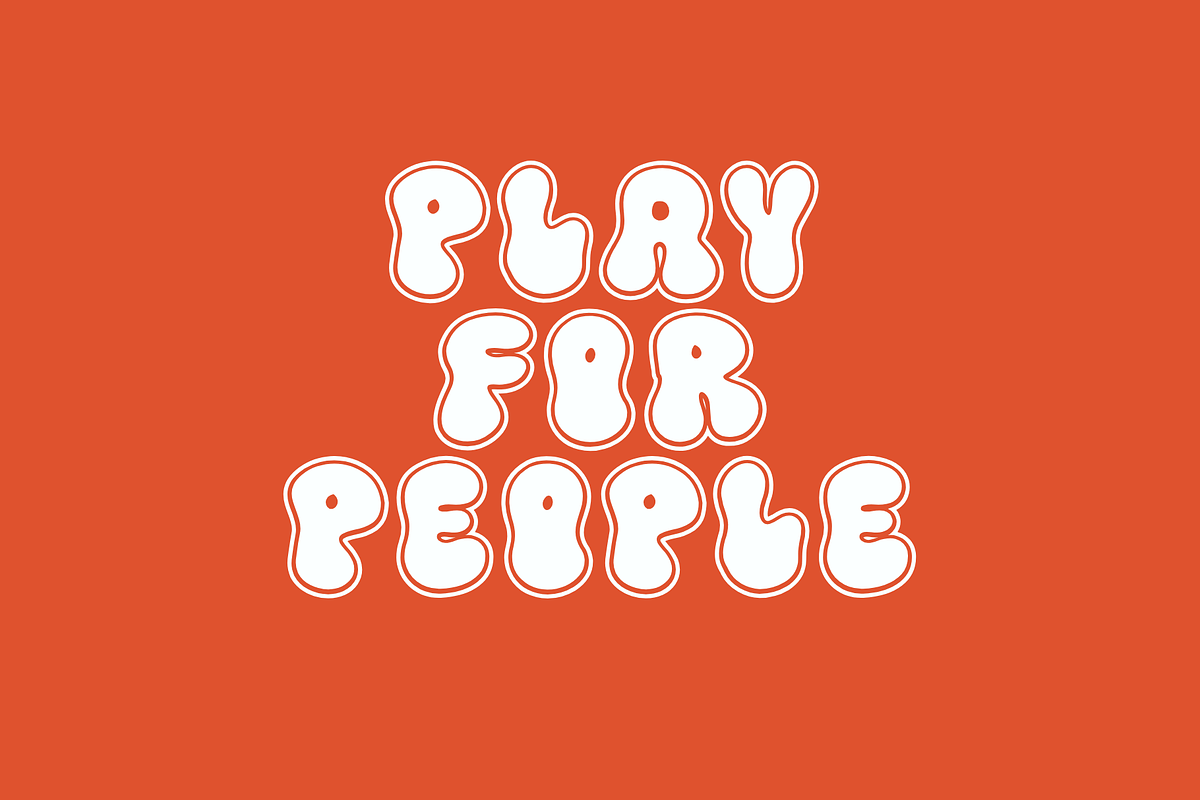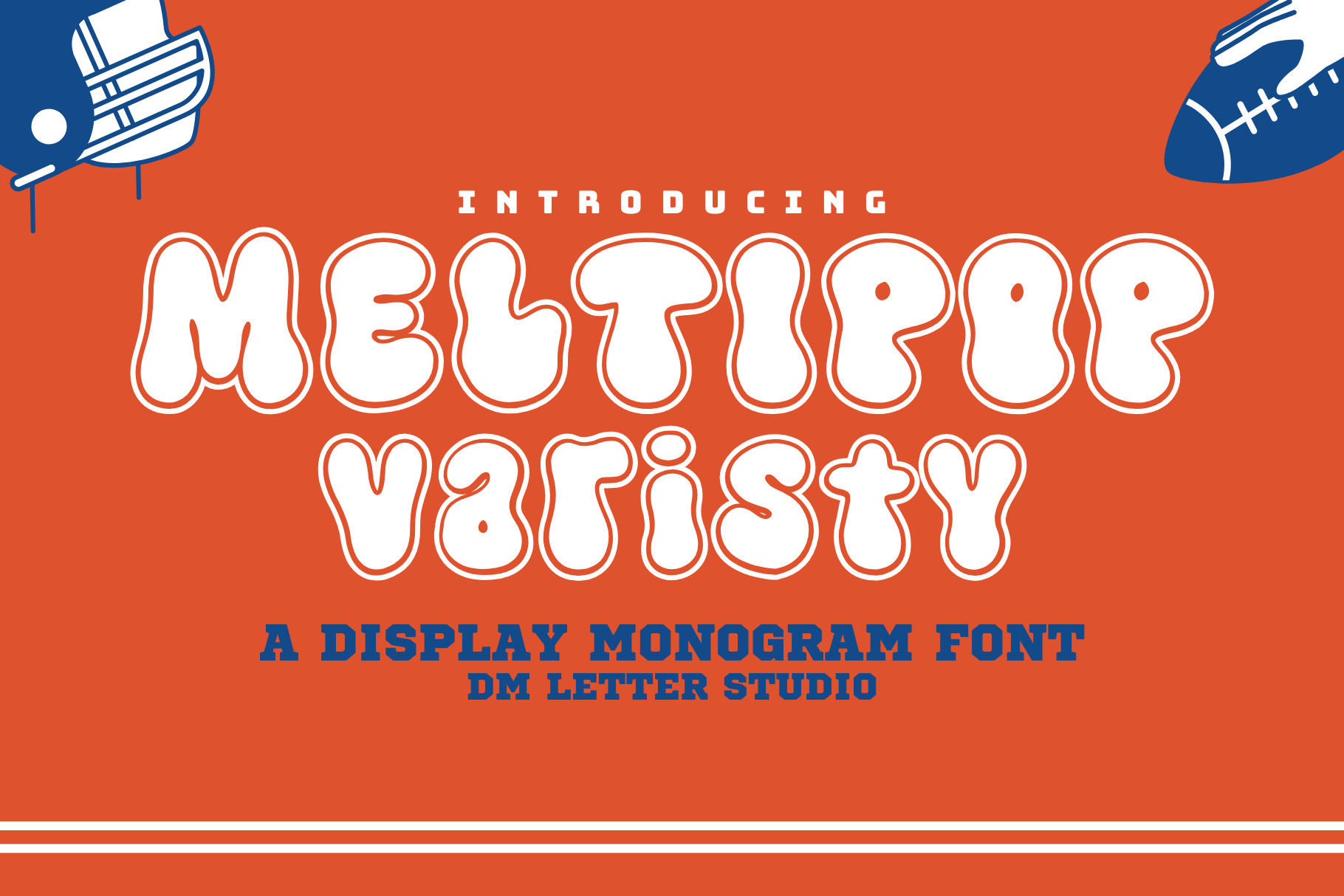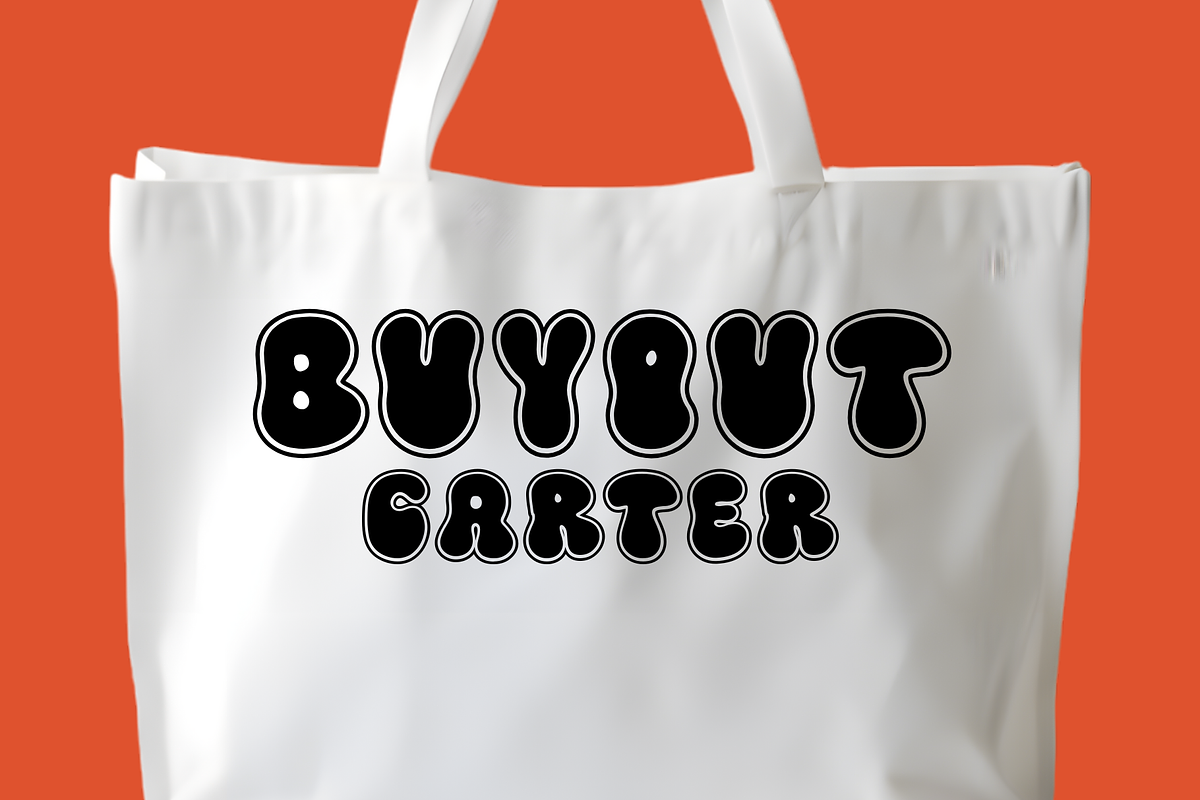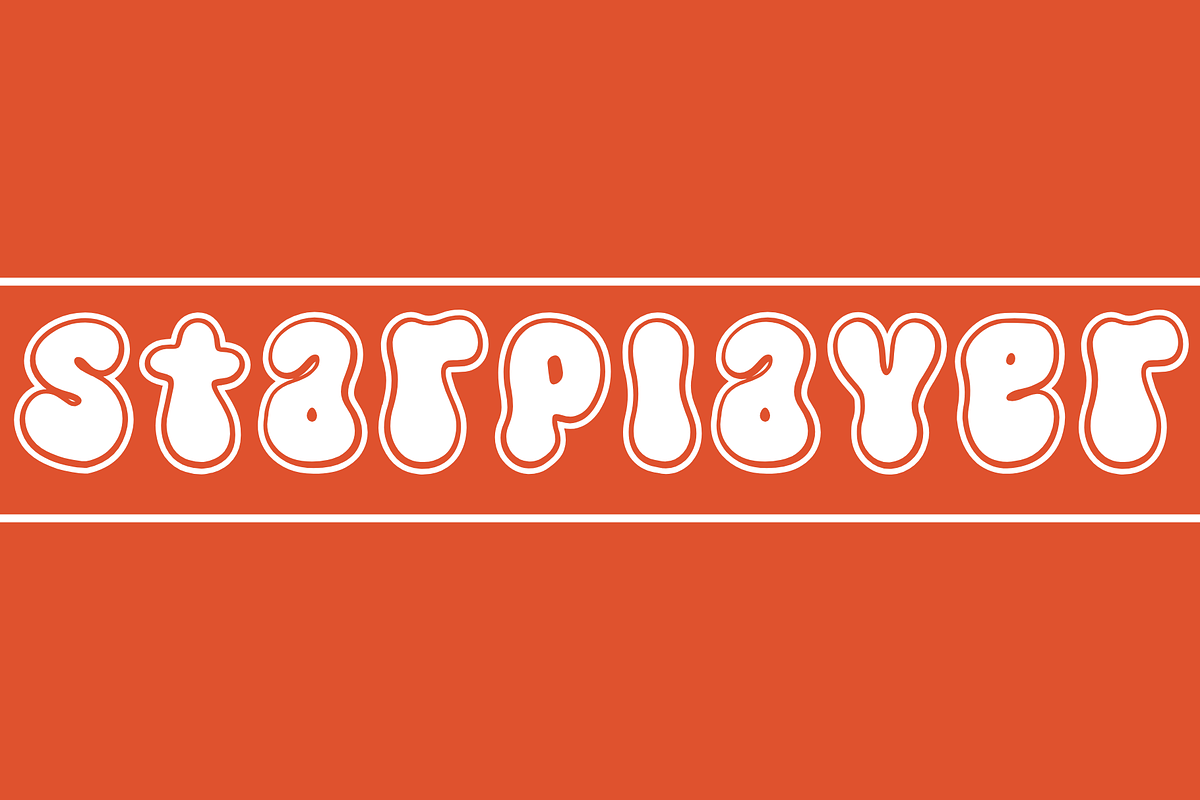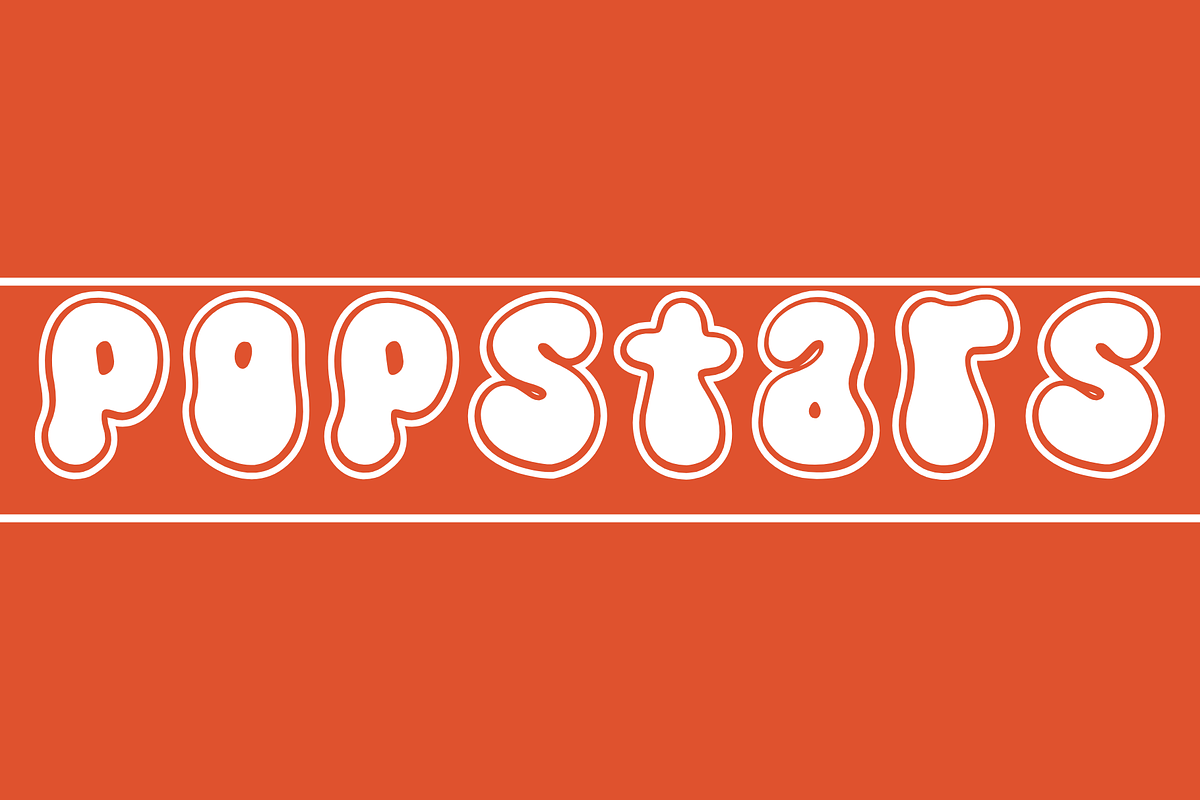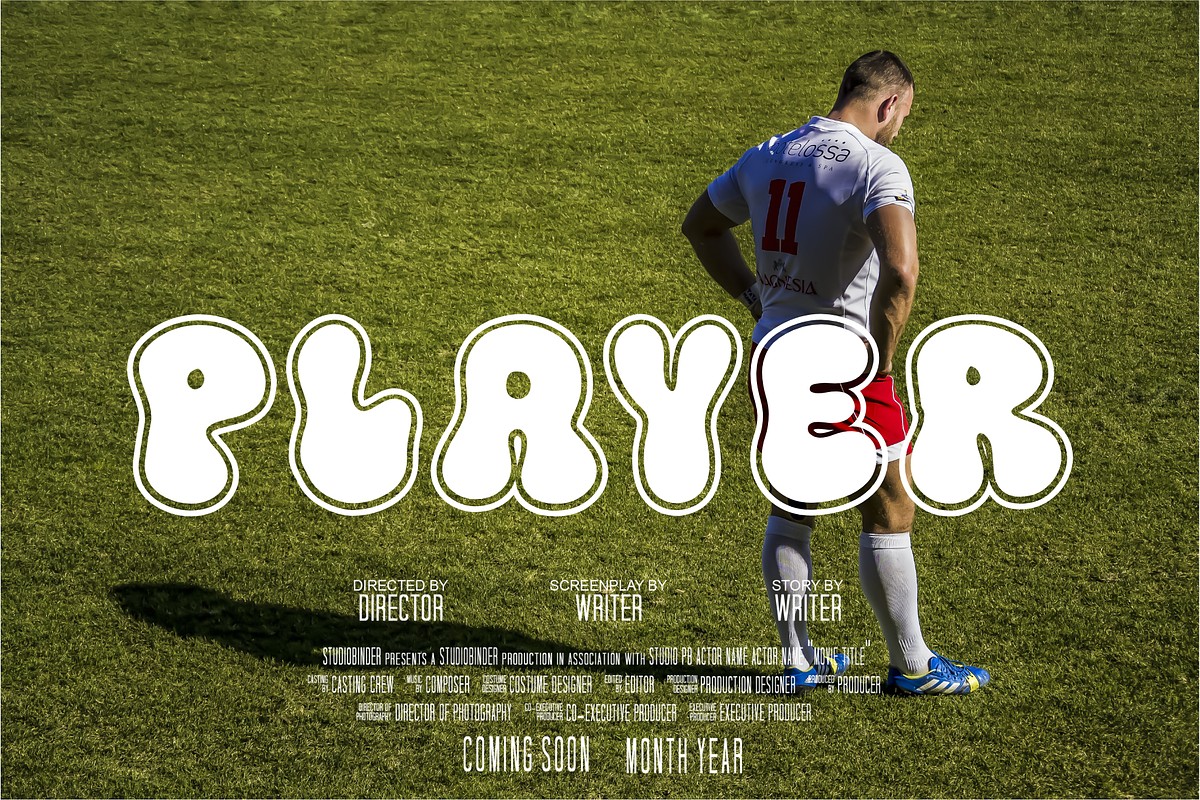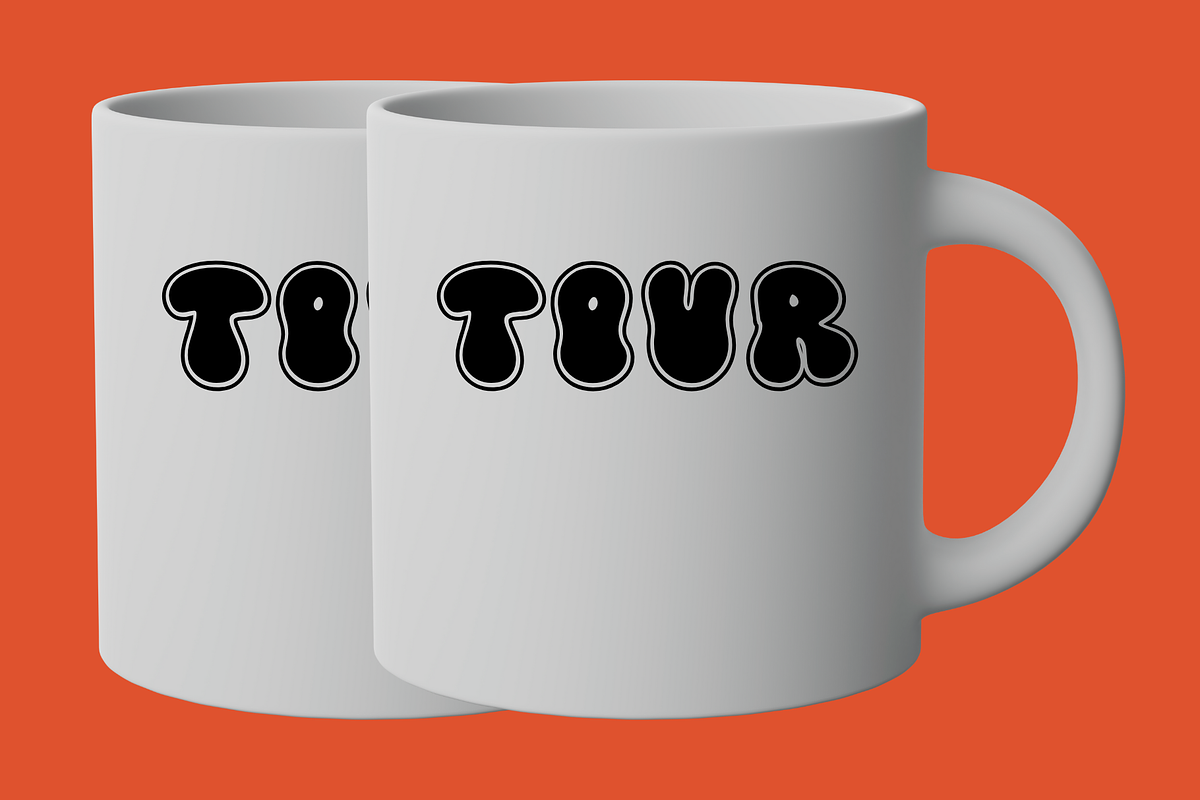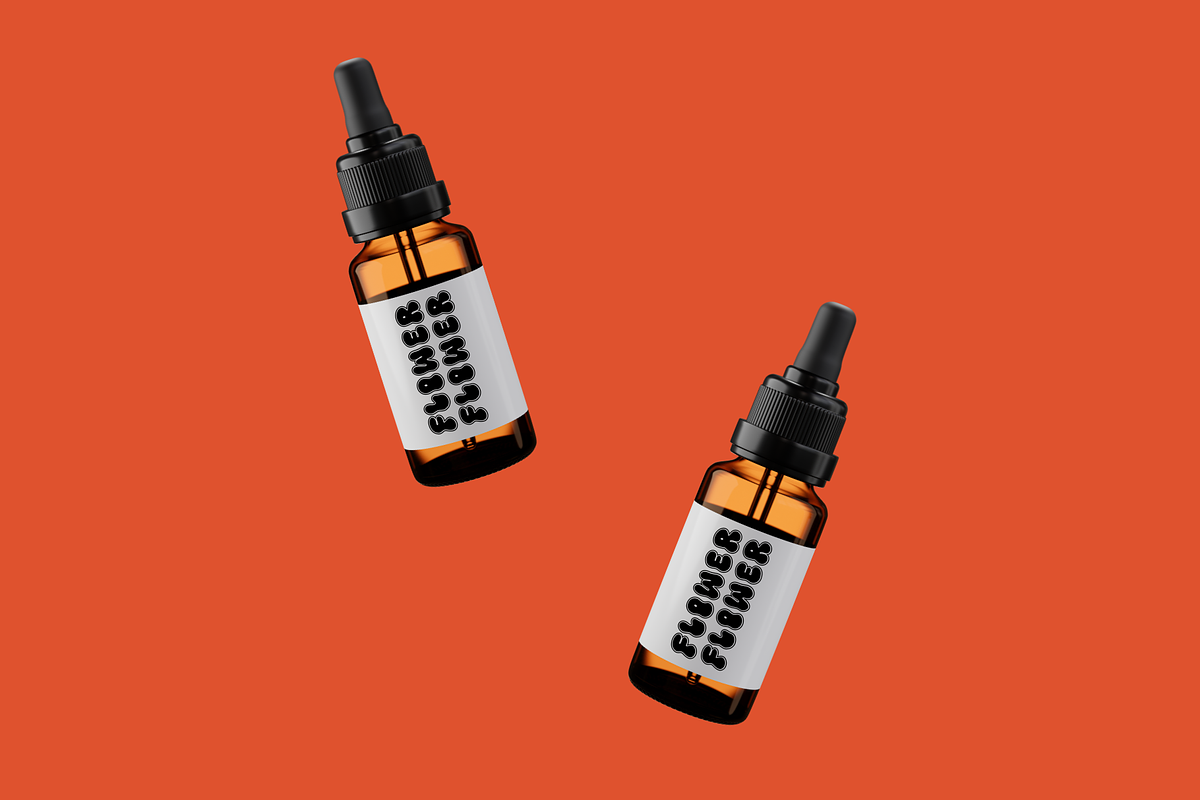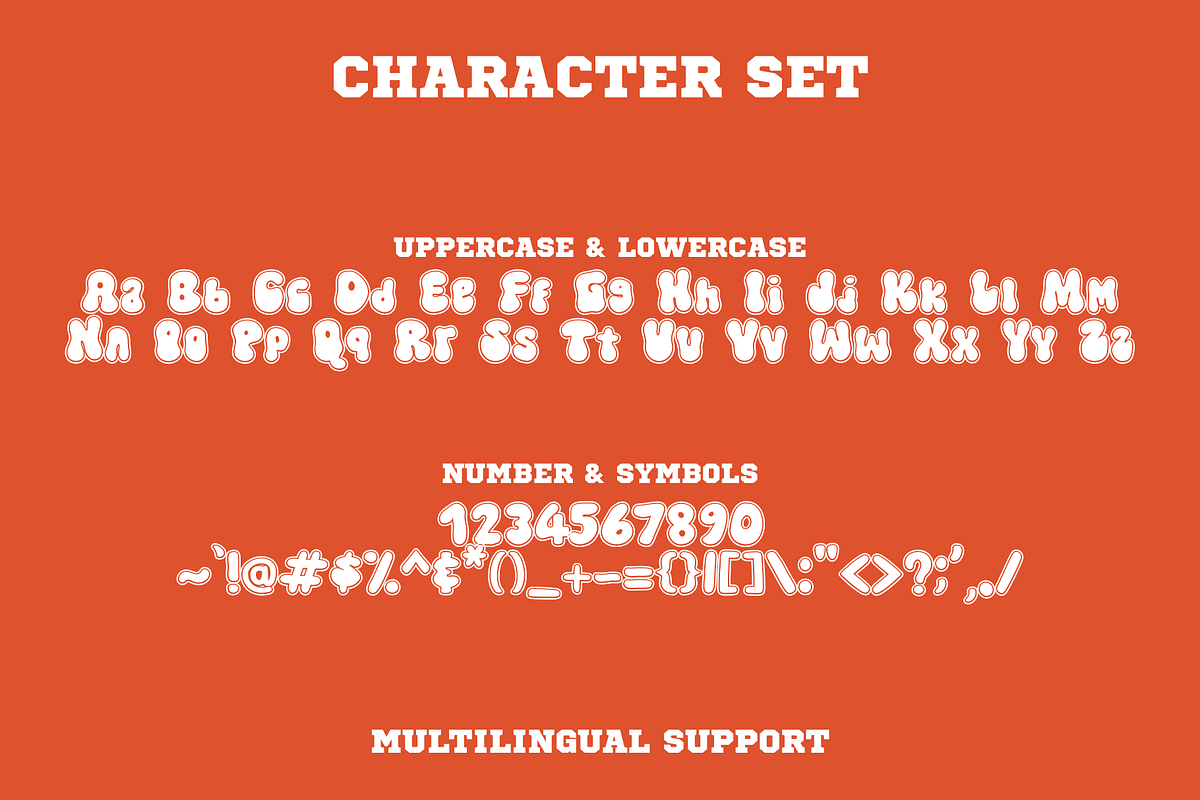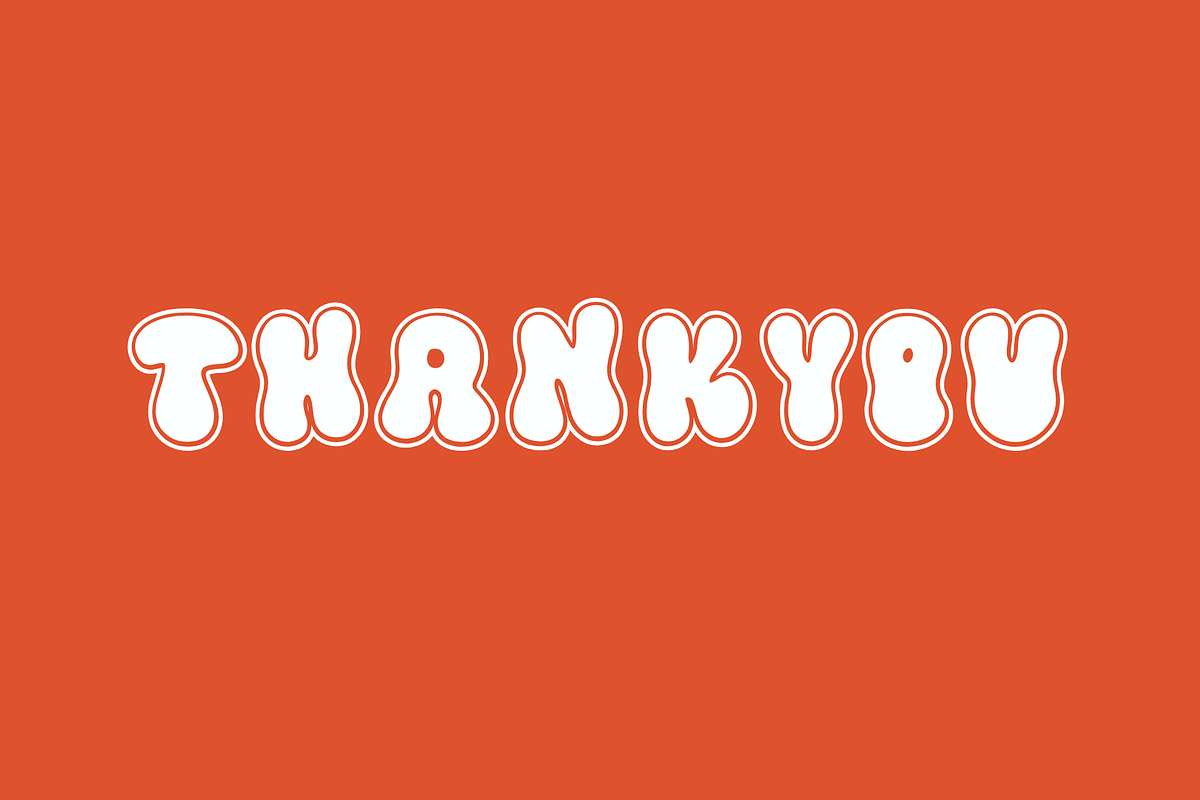
Meltipop Varsity Font
Meet Meltipop Varsity Font blends classic college lettering with bubbly pop flair. Letters feel bold and upright, yet the rounded shapes add friendly energy. Because the forms are sturdy, your words read fast on shirts, stickers, banners, and thumbnails. Use it for spirit wear, clubs, pep rallies, YouTube covers, and kids’ sports merch. Moreover, this style loves outlines and patch textures, so even quick mockups look polished. Where Meltipop Varsity Font shines Set punchy phrases like “Game Day,” “Good Vibes,” or city initials. Then add double strokes, stitch edges, or soft shadows to echo real varsity patches. Since spacing is tuned for headlines, layouts come together in minutes. As a result, you can launch full sets for teams, camps, and tournaments with less editing. Plus, the rounded rhythm keeps titles clear on mobile and small labels. Fast setup, bold results Install the files and start designing right away in Canva, Photoshop, and Illustrator. Clean paths keep vinyl cuts, DTG prints, and embroidery mockups crisp. Consequently, jerseys, caps, bottles, and banners hold a consistent look. Next, try color stories in navy–gold, cherry–cream, or lilac–lime for playful school spirit. Finally, build a reusable template—headline, outline, and shadow—so new SKUs roll out fast. Design tips for bubbly varsity Keep copy short and let Meltipop Varsity Font lead. Pair big headlines with a clean geometric sans for captions. Meanwhile, sticker borders, felt textures, and light grain add depth without clutter. Because the shapes are friendly, candy gradients and puffy-print effects work beautifully. However, avoid long sentences on tiny tags. Names, numbers, and punchy phrases hit hardest. What you get inside - OTF, TTF, and WOFF files - Uppercase, lowercase, numbers, punctuation - Multilingual Latin support - Optimized outlines for vinyl, DTG, and print Why creators choose Meltipop Varsity Font You want school spirit with a fun twist. Meltipop Varsity Font delivers instant impact, fast workflows, and clean results from stickers to sideline banners. Therefore, one typeface can anchor your team drops, kid-friendly collections, and seasonal spirit gear.